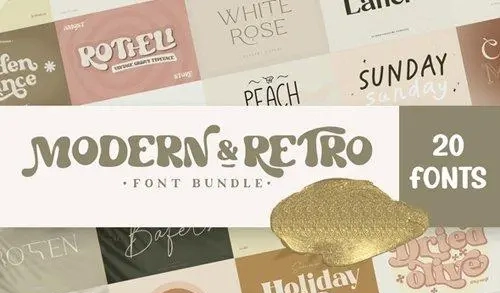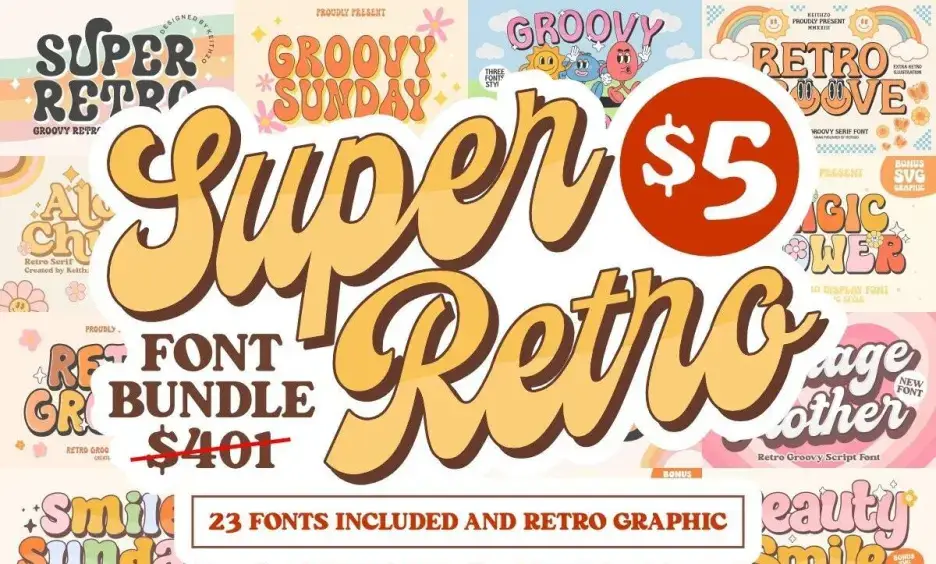
The Mega Font Collections 2020
A powerhouse of diversity—elegant serifs, sleek sans-serifs, and fun display fonts all in one pack. Perfect for when you need a little bit of everything! ✨
Mega Bundle – 100+ Fonts
Over 100 fonts?! Yes please! 🎉 From clean sans-serifs to playful scripts, this bundle is like a candy store for type lovers. Your next masterpiece is just a download away.
The Luscious Font Collection
Rich, velvety typefaces that scream sophistication. 🌟 From elegant scripts to bold displays, this collection makes everything look like a million bucks.
Sweet And Appealing Font Bundle
Charming, delightful, and oh-so-inviting! 🍭 Perfect for crafting invitations, cute branding, or anything that needs a sprinkle of sweetness.
The Big Cute Fonts Bundle
Playful, whimsical, and full of personality! 🧸 If your project needs a touch of childlike wonder, this bundle of handwritten and script fonts is your new best friend.
Lucky Font Bundle
Strike gold with this unique mix of script, serif, and sans-serif styles. 🍀 Each font brings a distinct flair—perfect for making your designs feel truly special.
The Aesthetic Sofia Font Bundle
Elegance meets modernity in this curated collection. 🌸 With script, serif, and sans-serif options, it’s a dream for minimalist designers and Instagram-worthy branding.
The Legendary Font Bundle – 61 Premium Fonts
61 fonts that are, well, legendary! 🏆 From modern sans-serifs to timeless serifs, this pack has the range to tackle any design challenge you throw at it.
Super Retro Font And Graphics Bundle
Take a trip back in time! 🕹️ This bundle combines vintage-inspired fonts with graphics that scream 80s and 90s nostalgia. Absolutely rad for poster and apparel design.
The Fantastic Fonts Bundle – 37 Premium Fonts
37 premium fonts that are, well, fantastic! 🌈 Mixing elegant serifs with modern sans-serifs, this bundle delivers serious bang for your buck.
The Curved Font Bundle – 25 Fonts
Smooth curves and unique silhouettes define this 25-font bundle. 🌀 Ideal for adding a creative, flowing touch to logos, invitations, and more.
The Craftpreneur Mega Pack – 200 Premium Fonts
200 fonts?! That’s an entire typography library in one download! 📚 Perfect for crafters, entrepreneurs, and designers who want endless options for branding and print.
Modern And Retro Font Bundle – 20 Premium Fonts
Best of both worlds: sleek modern fonts meet charming retro vibes. 🕶️ This 20-font bundle is a curated gem for trendy branding and vintage-inspired projects.
The 69 In 1 Spring Bundle [100+ Fonts]
Spring into action with over 100 fonts in one refreshing bundle! 🌼 From elegant serifs to playful scripts, it’s the ultimate refresh for your font library.
The Dreamink Collection Font Bundle
Dreamy, artistic, and utterly inspiring. 🌙 This collection blends elegant scripts with bold displays and modern sans-serifs for a truly versatile set.
The Beauty Script Bundle – 20 Fonts
20 gorgeous script fonts that bring pure elegance to any project. 💫 Perfect for wedding invitations, luxury branding, or anything that needs a graceful touch.
The Bold Font Bundle
Make a statement that can’t be ignored! 🔥 This collection of strong, impactful fonts includes extra bold weights that demand attention in headlines and posters.
The Dream Collection Font Bundle
A dream come true for typography lovers! 💤 With elegant scripts, modern sans-serifs, and classic serifs, this bundle is versatile enough for any creative vision.
Modern Elegant Font Bundle
Sophistication meets contemporary design. 🖤 This bundle of serif, sans-serif, and script fonts is your go-to for high-end branding and polished web design.
Handwritten Font Bundle – 24 Premium Fonts
Authentic, warm, and full of character! ✍️ These 24 handwritten fonts are perfect for adding a personal, human touch to any design—from logos to social media graphics.